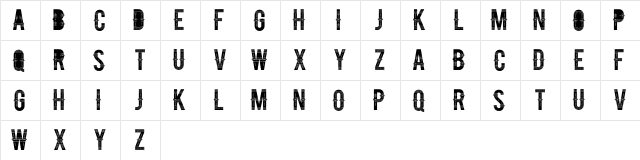
FDT_CARRETO_DEMO_VERSION Regular
Design Context for FDT_CARRETO_DEMO_VERSION Typeface
FDT_CARRETO_DEMO_VERSION is a composed and adaptable typeface that performs quietly and consistently across a wide range of design contexts.